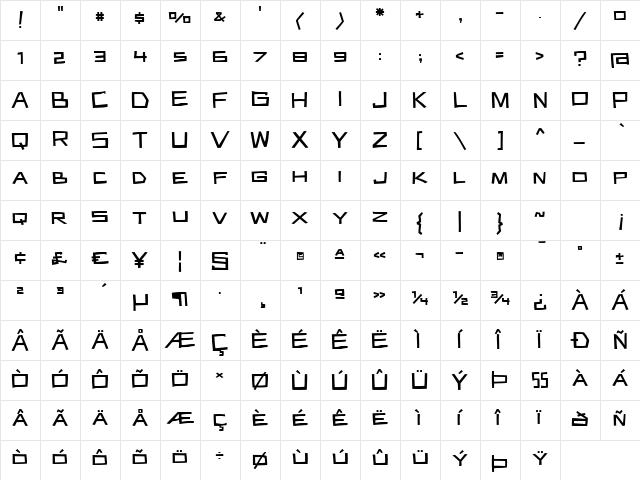
LoveAnxiety AOE Regular
Design Context for LoveAnxiety AOE Typeface
LoveAnxiety AOE offers clean, dependable letterforms without strong stylistic allegiance, making it a practical choice for designers who need flexibility.